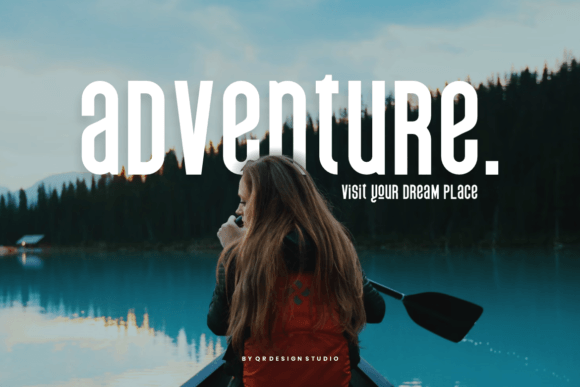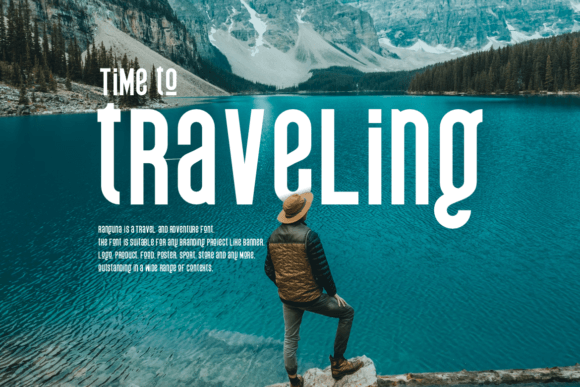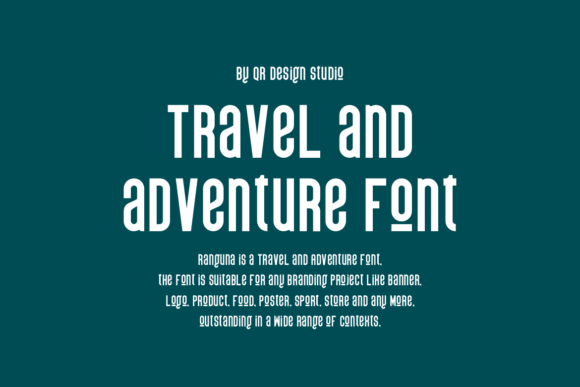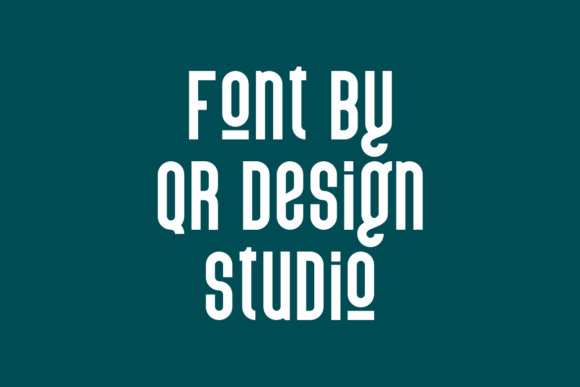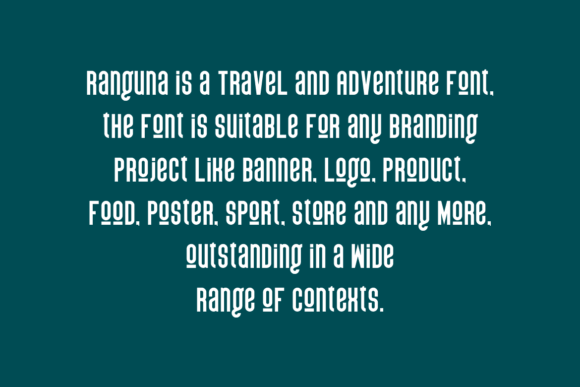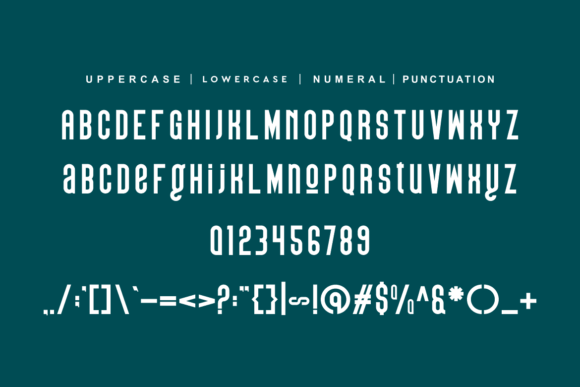
Introduction to Ranguna Font
You’ve finally nailed the concept for your creative project – the perfect blend of color, texture, and typography. But, there’s one crucial element that can elevate your design from good to great: the right font. That’s where the Ranguna Font comes in – a bold and assertive sans serif font that’s sure to make a statement.
With its natural and unique style, the Ranguna Font is the perfect design resource for any creative project. Whether you’re working on a graphic design, logo, or even a web design, this font is sure to add a touch of sophistication and elegance. Plus, with a free download available, you can bring this high-quality font into your design workflow without breaking the bank.
So, what makes the Ranguna Font so valuable for designers? For starters, its transparent background makes it incredibly versatile, allowing you to layer it with other design elements or use it as a standalone feature. And with its bold, assertive style, you can be sure that your design will stand out from the crowd.
Key Features of Ranguna Font
- Features a transparent background, allowing for seamless integration with designs
- Comes in a range of font sizes and resolutions, including 72 dpi and 300 dpi
- Unique, stylish design makes it perfect for use in digital and print materials
- Designed to be versatile and adaptable for a variety of design applications
Honest Review: Ranguna Font
I recently had the chance to work with the Ranguna Font, and I must say it’s been a game-changer for my creative projects. This free download has been a valuable addition to my design resources, offering a unique and high-quality font that’s perfect for a wide range of applications.
- ✨ High-quality design: The Ranguna Font is meticulously crafted with attention to detail, resulting in a polished and professional look.
- ✨ Versatility: This font is suitable for a variety of creative projects, from digital displays to print materials.
- ✨ Transparent background: The transparent background makes it easy to overlay the font on top of other design elements, giving me more flexibility in my designs.
- ⚠️ Limited font sizes: The font is only available in a limited number of sizes, which can be restrictive for certain projects.
- ⚠️ Limited language support: The Ranguna Font only supports a limited number of languages, which may be a concern for international projects.
Overall, I’m impressed with the Ranguna Font and would highly recommend it as a valuable design resource. Its unique design and high-quality features make it an excellent choice for any creative project.
Tips for Getting the Most Out of Ranguna Font
Ranguna Font is ideal for creative projects such as logos, business cards, and social media graphics. Its high-quality design and transparent background make it a versatile resource for designers and non-designers alike.